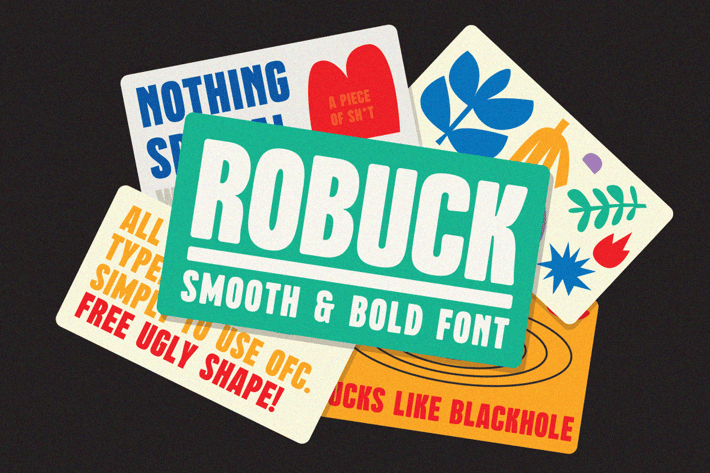
Robuck Display Font
MartypeCo
Robuck Sans is a family Sans Serif font designed with carefully handcrafted. Also suitable for branding, T-shirt, Wedding Invitation, Classic Design, Logotype, and any project. With two style make you easier to design everythings.
Multilingual Support support many different languages 20+ .